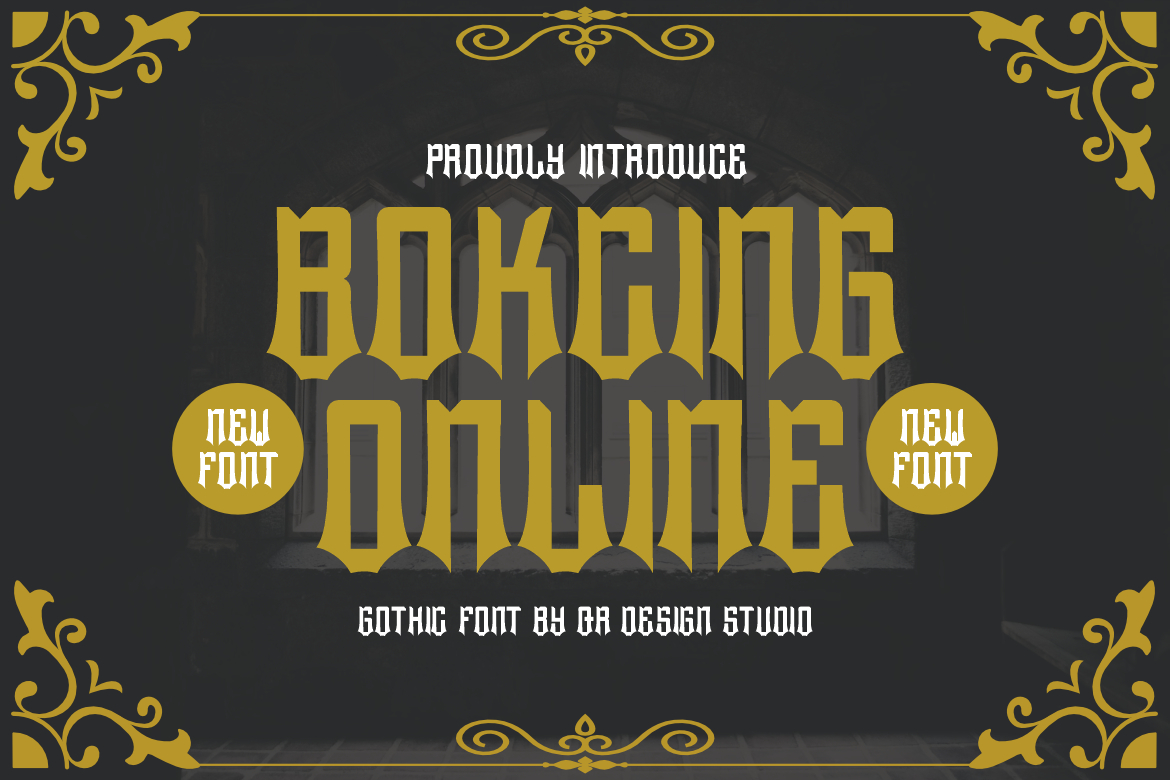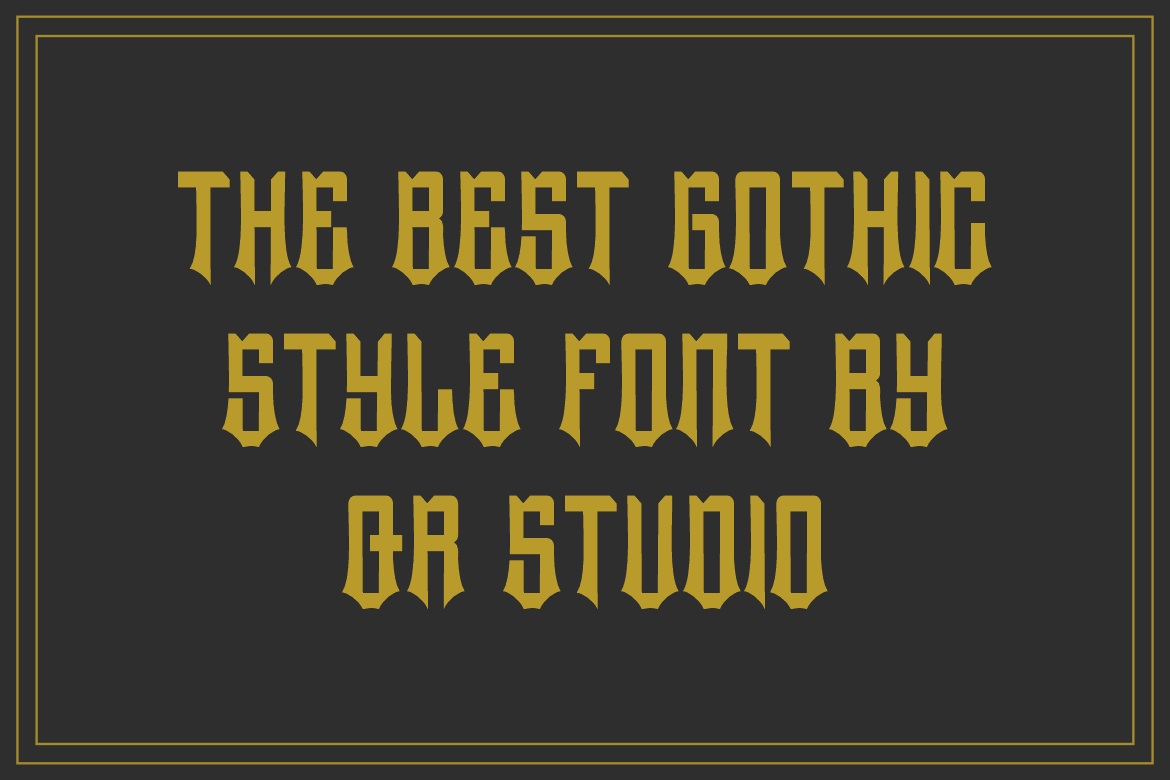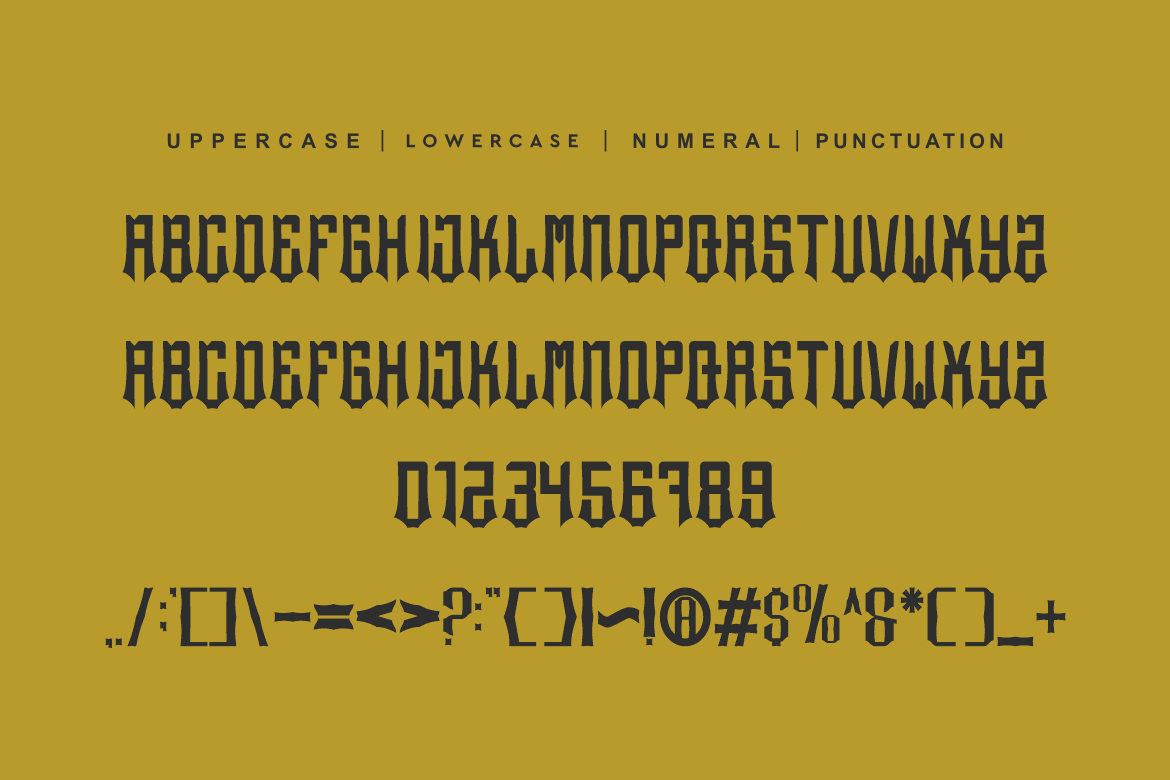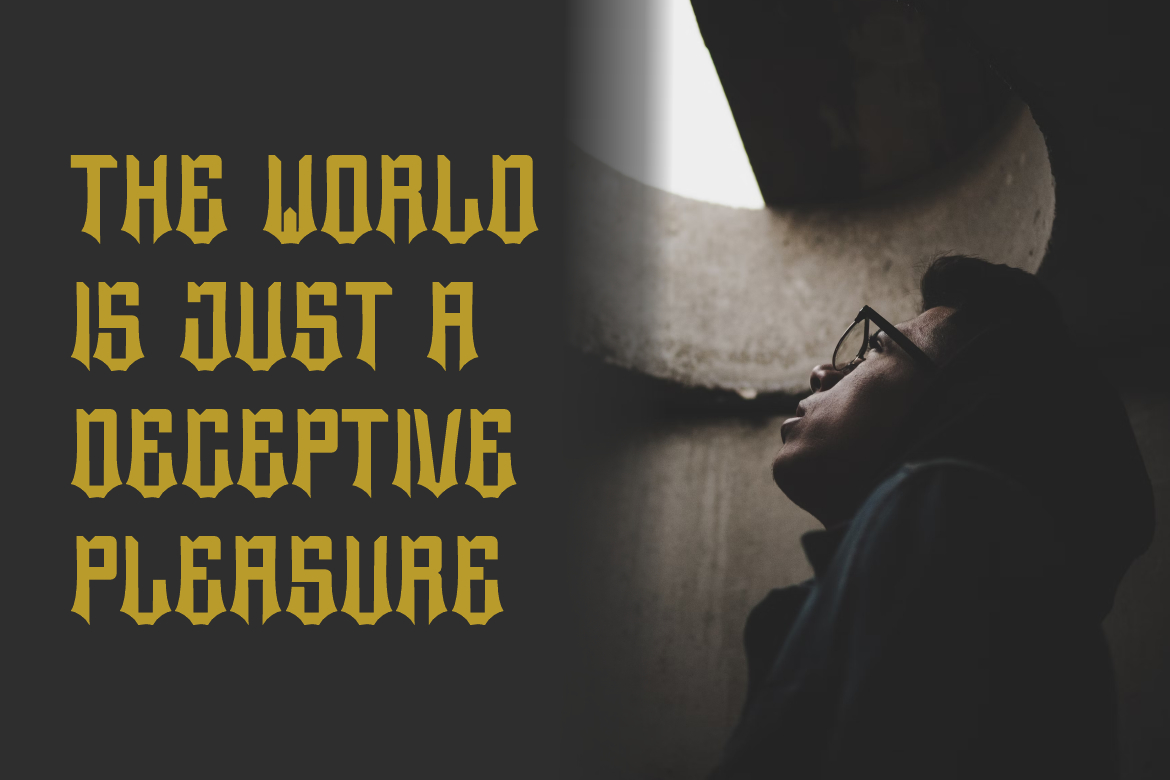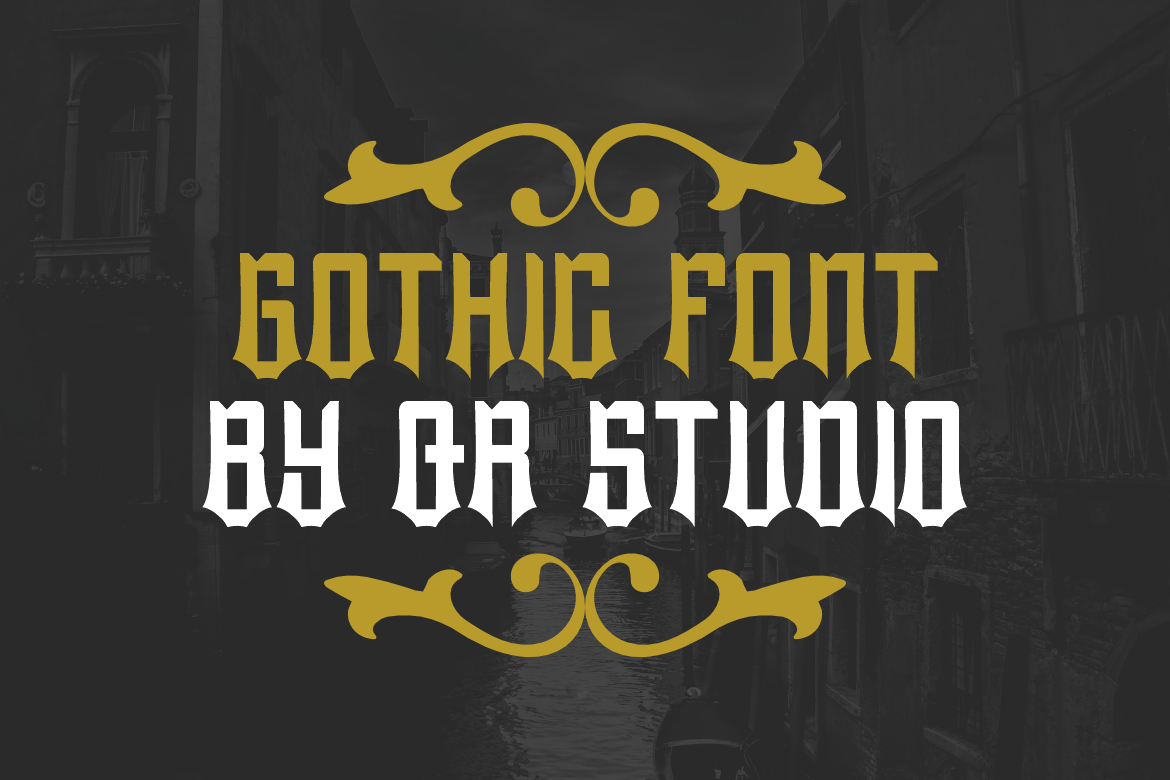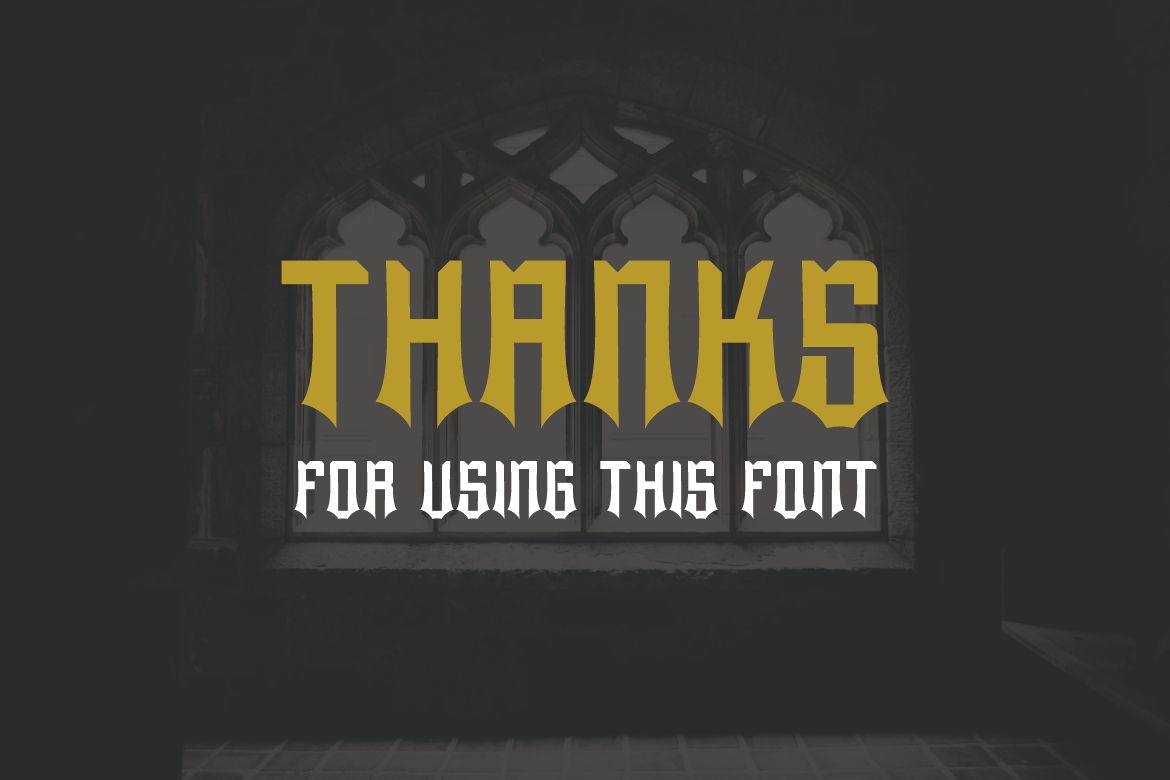
Bokcing Online Font
About Bokcing Online Font
Bokcing Online is a bold and thick lettered blackletter font. Add it confidently to your projects, and you will love the results.